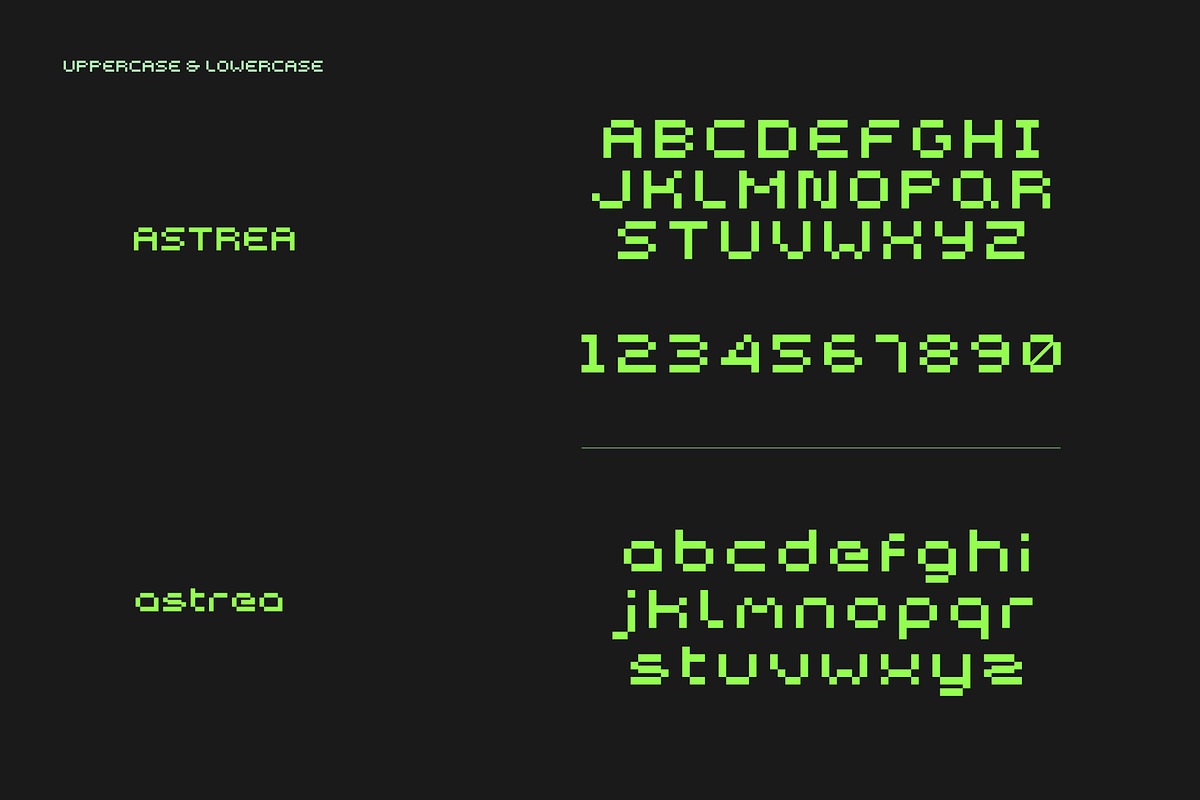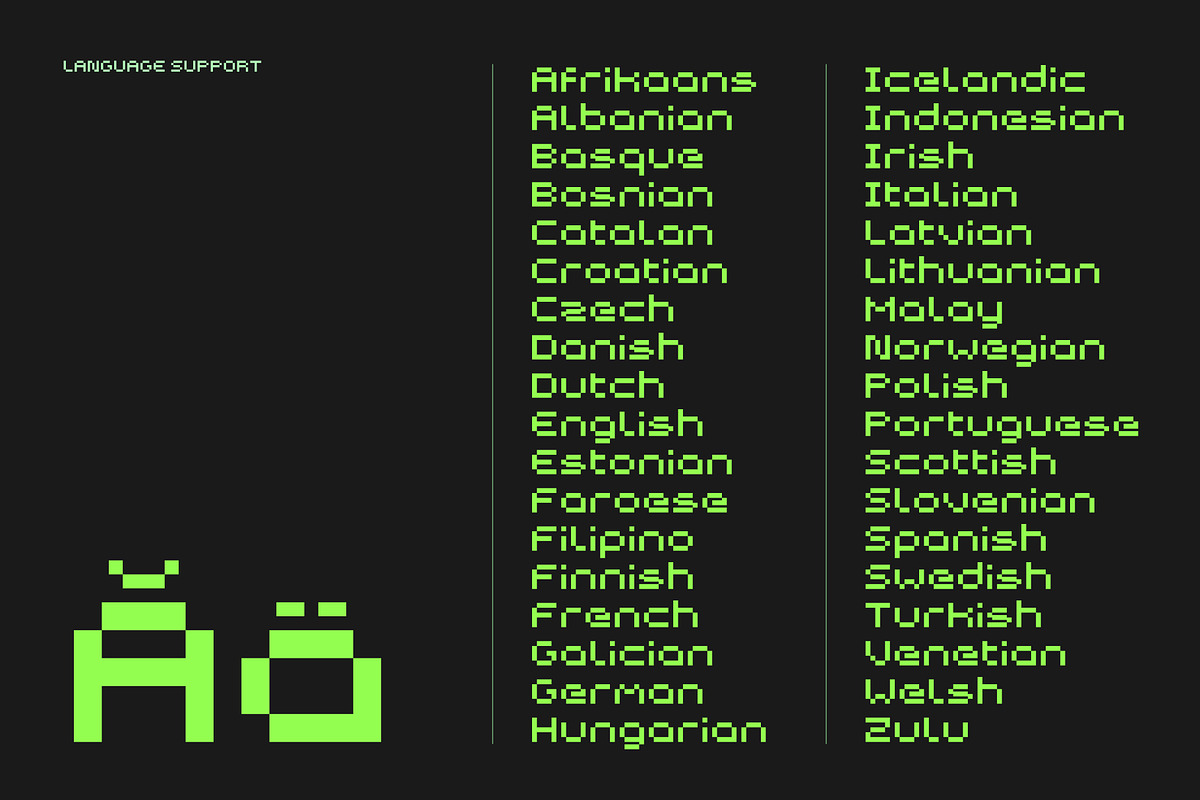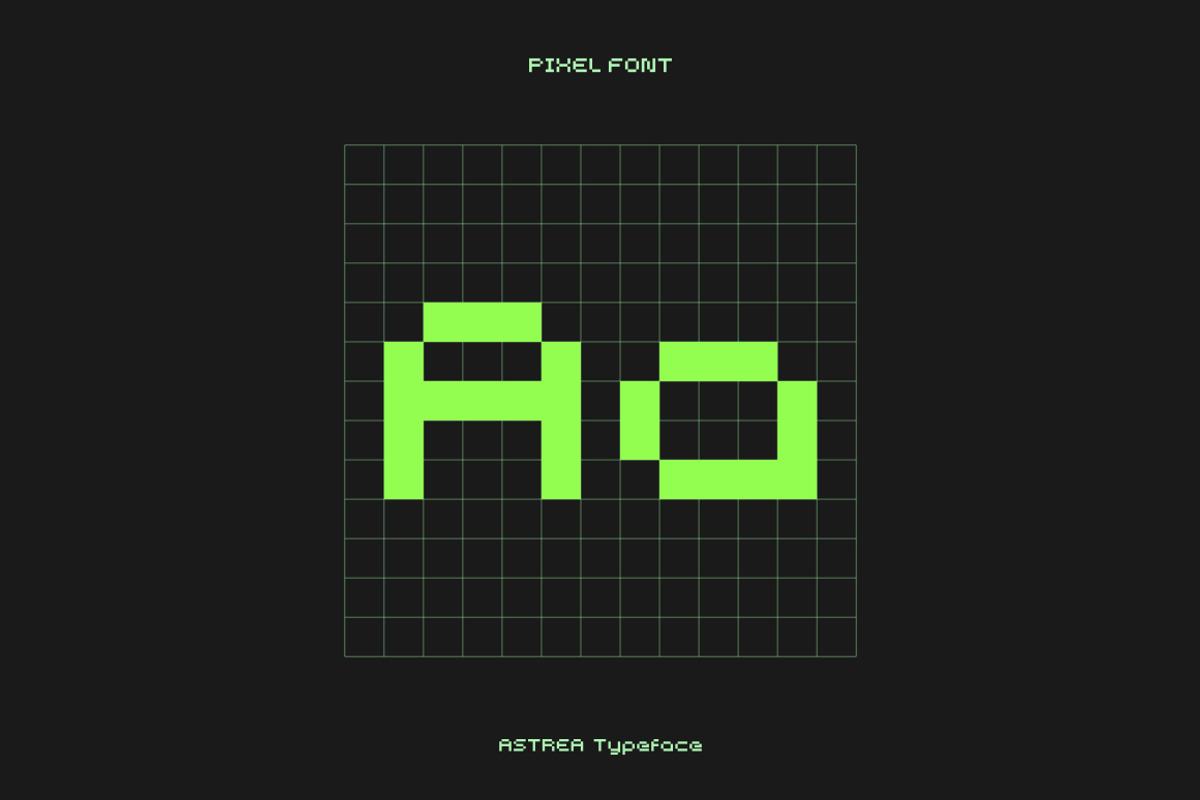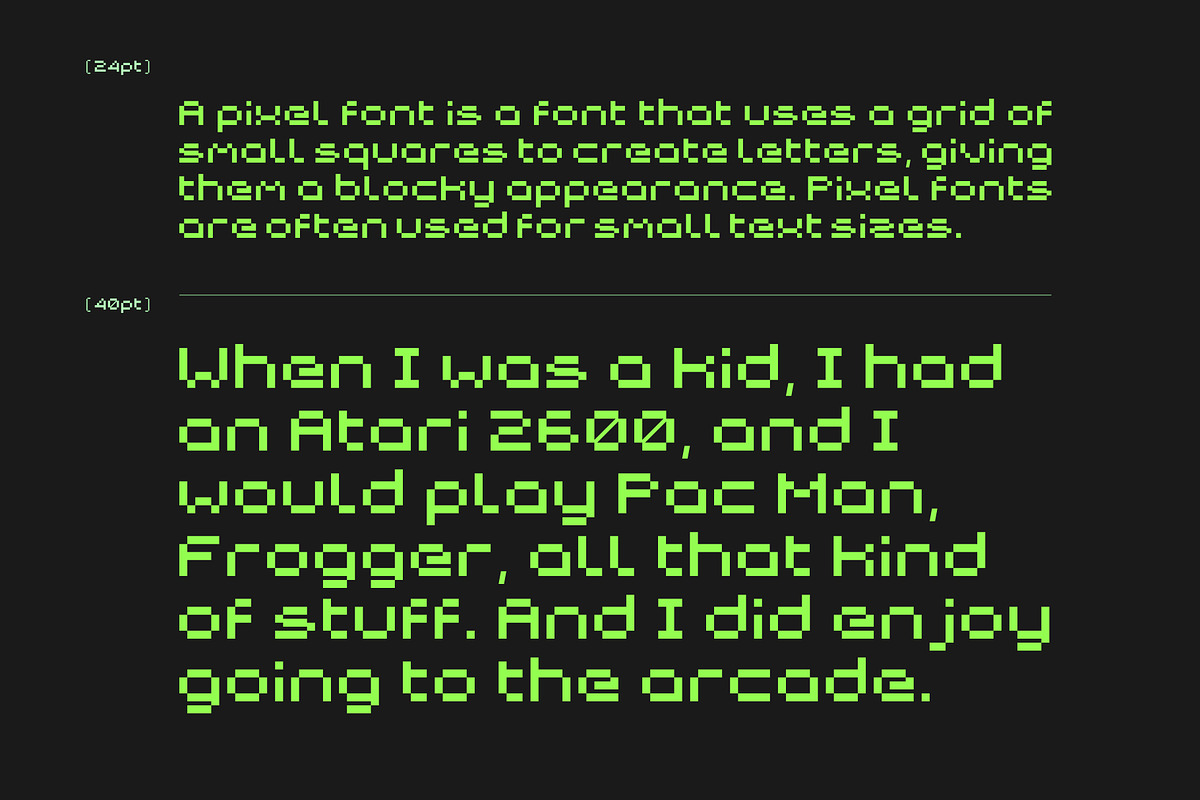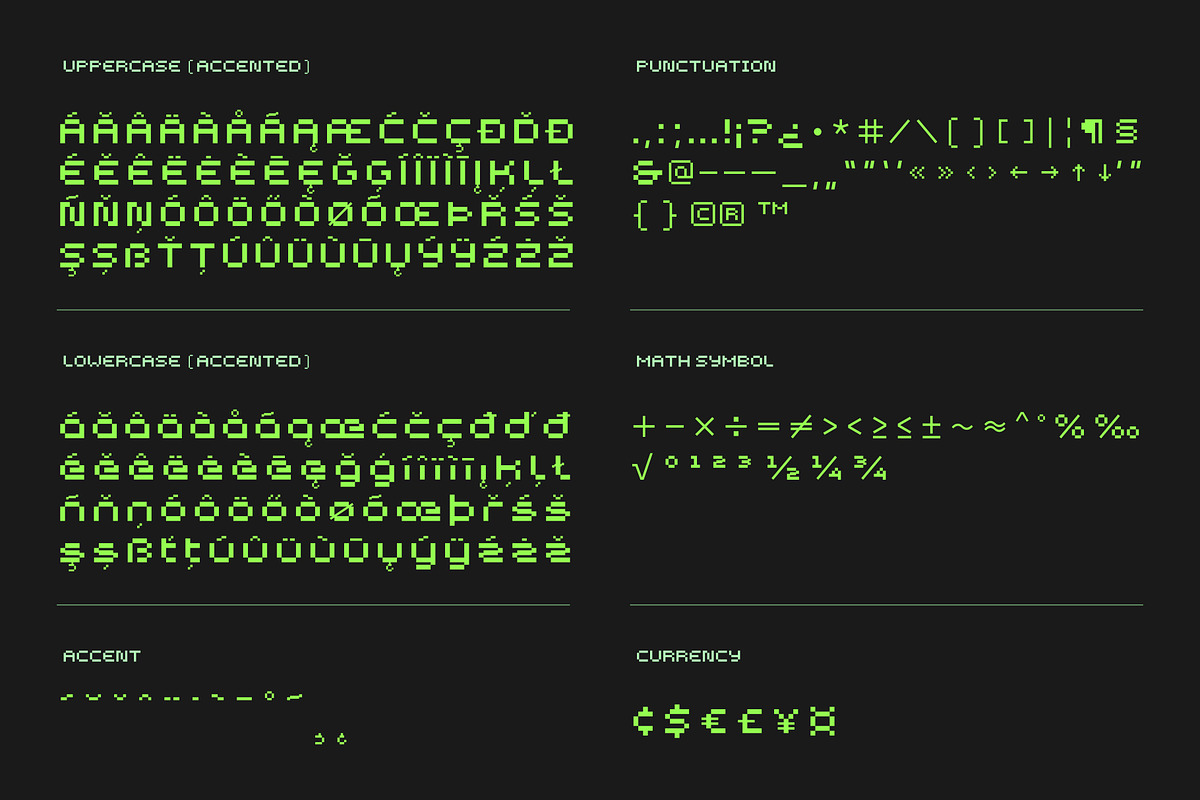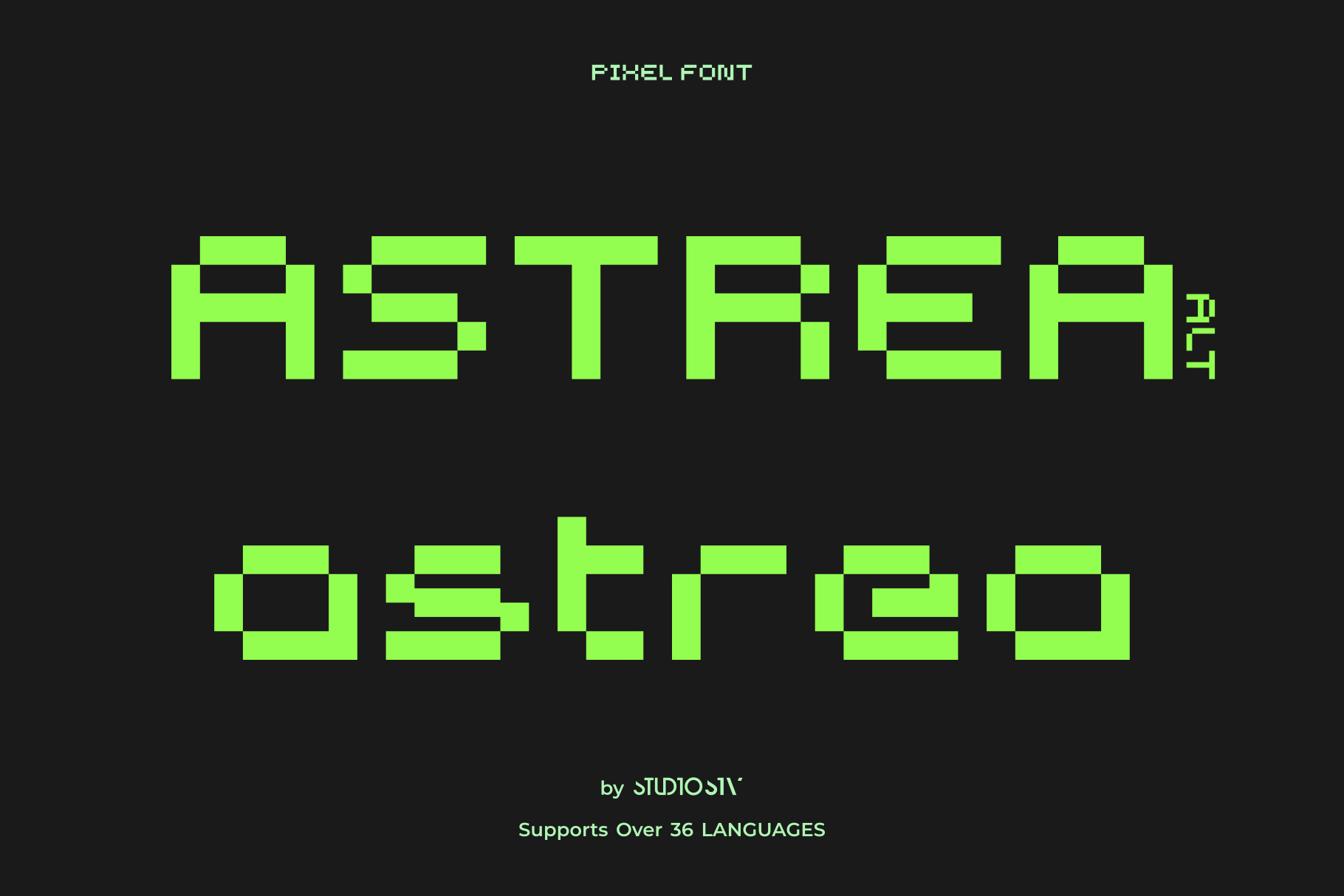
Astrea ALT - 8 Bit Pixel Game Font
Astrea ALT is the alternate version of Astrea font and it looks more 8-bit.
Astrea is a carefully crafted pixel font inspired by 8-bit retro games. It combines pixel precision with modern readability and design, making it ideal for games, graphic design, creating vibrant and eye-catching visuals, and more.
- Display & Text Font
- Supports over 36 Languages
Language Support
Afrikaans • Albanian • Basque • Bosnian • Catalan • Croatian • Czech • Danish • Dutch • English • Estonian • Faroese • Filipino • Finnish • French • Galician • German • Hungarian • Icelandic • Indonesian • Irish • Italian • Latvian • Lithuanian • Malay • Norwegian • Polish • Portuguese • Scottish • Slovenian • Spanish • Swedish • Turkish • Venetian • Welsh • Zulu